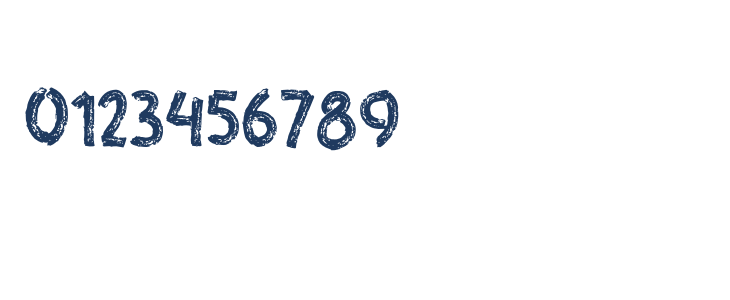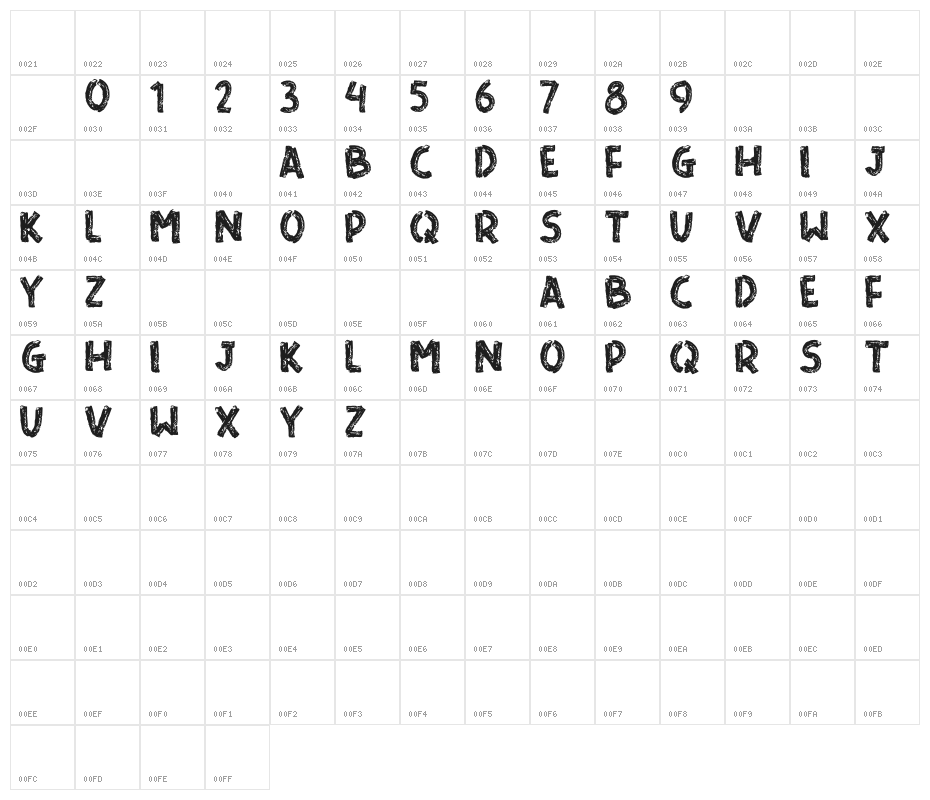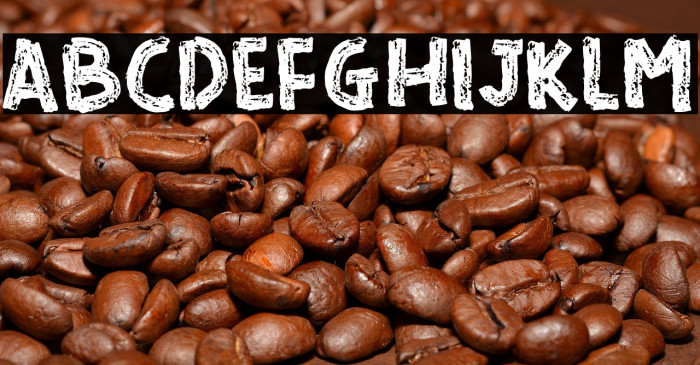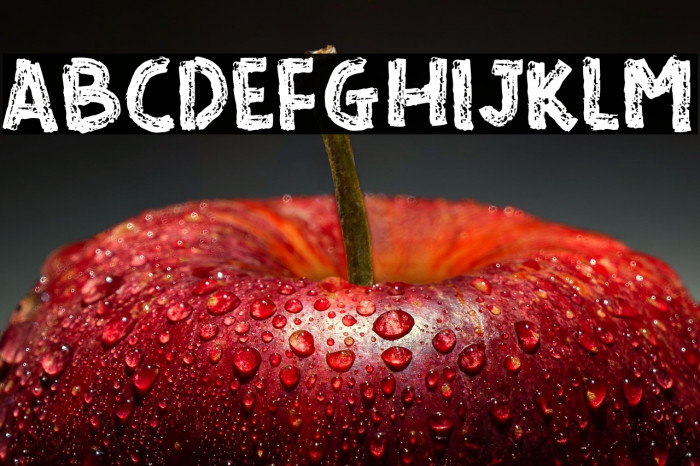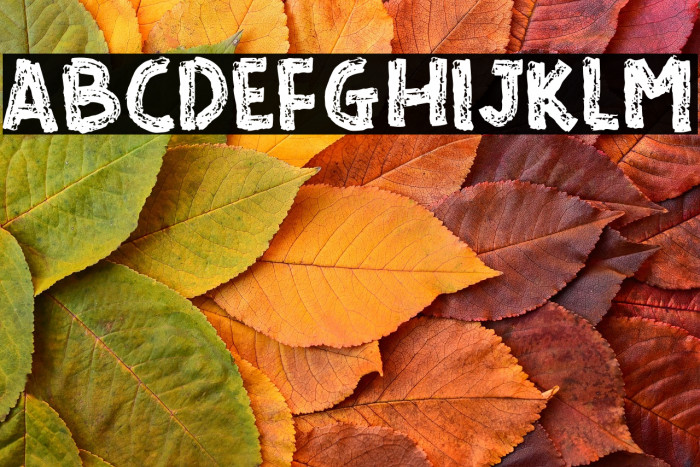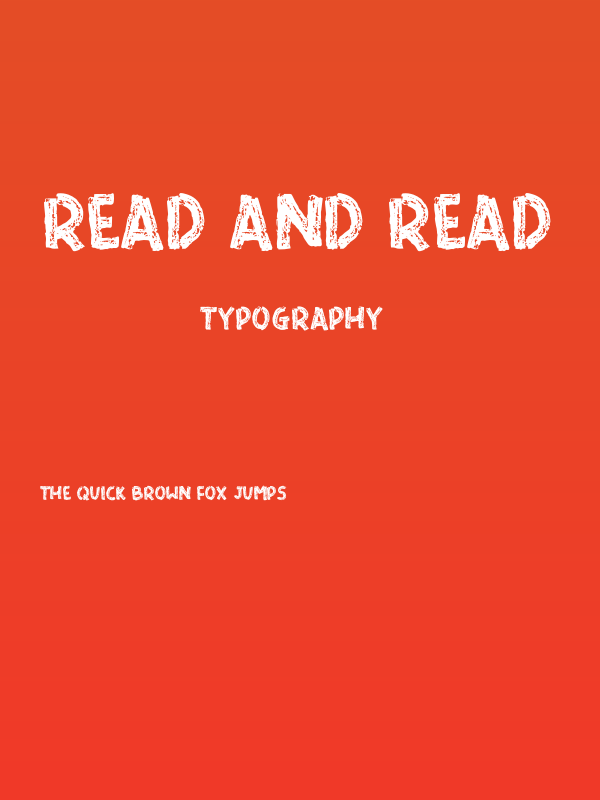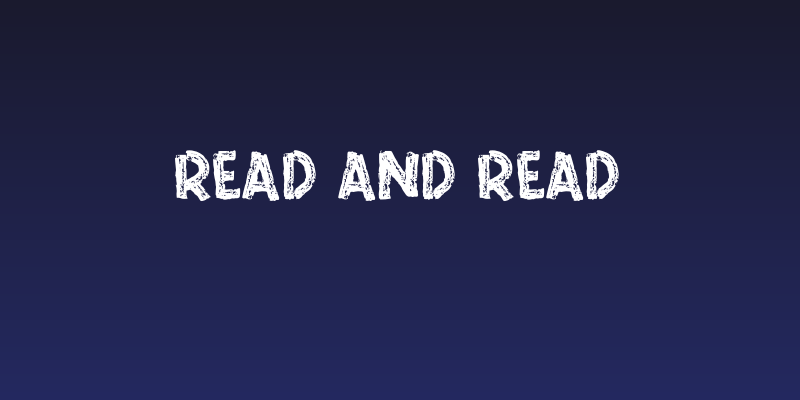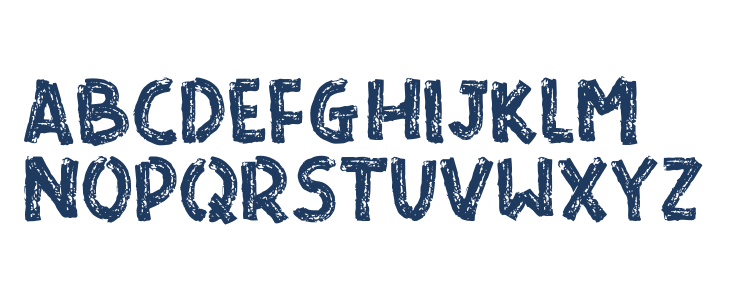
READ AND READ Font
READ AND READ Description
This font features a bold, textured style that mimics the appearance of hand-drawn chalk or crayon strokes. The characters are uppercase and numerals, each with a rough, uneven edge that adds a playful and artistic touch. The texture gives the impression of a vintage or rustic feel, making it suitable for designs that require a handcrafted look. The letters are slightly condensed, which allows for tighter spacing and a compact appearance. This font is ideal for creative projects where a casual, informal aesthetic is desired.
| Width | Condensed |
| Overall Style | Vintage |
| Proposed Projects | Ideal for posters, children's book covers, educational materials, and playful branding. |